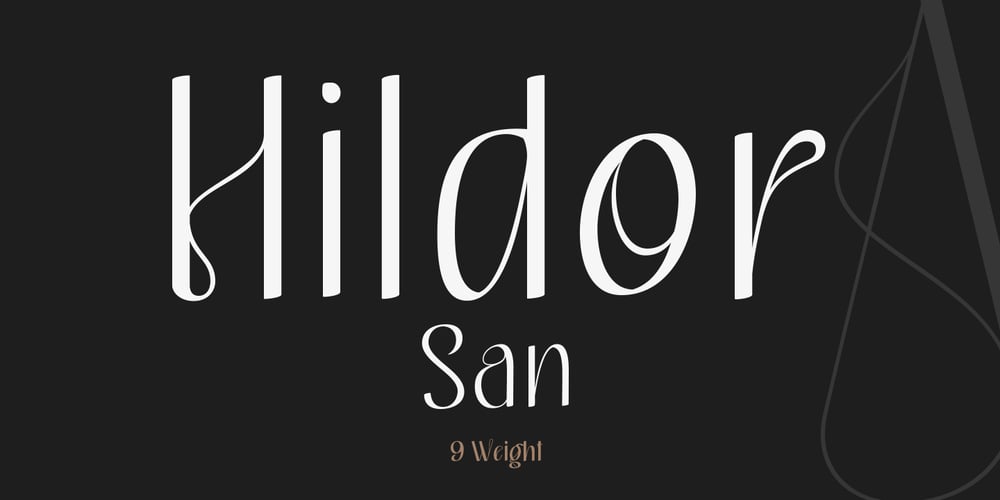
Hildor San Font Family was designed by Mix Jpg and published by MIX.Jpg. Hildor San contains 9 styles and family package options. Hildor San is a san serif font with full set of uppercase and lowercase letters, multilingual symbols, numerals, punctuation and ligatures. Hildor San elegant san serif font 9 family, classic and elegant style for poster design, magazines, beauty branding with a flower-shaped asterisk glyph suitable for your beautiful and elegant design concept.Features Standard glyphs uppercase and lowercase letters Numerals, a large range of punctuation and ligatures. Lowercase letters include ending swashes. Works on PC & Mac. Simple installations, accessible in the Adobe Illustrator, Adobe Photoshop, Adobe InDesign, even work on Microsoft Word. PUA Encoded Characters – Fully accessible without additional design software. Fonts include multilingual support for; ä ö ü Ä Ö Ü ß ¿ ¡